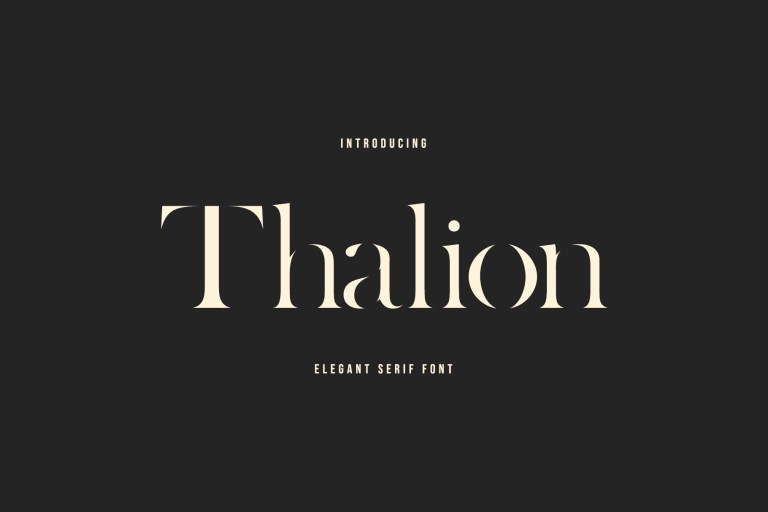
Thalion Font
Thalion Font is perfect for fantasy novel covers, medieval game titles, mystical restaurant branding, elven-themed events, ancient manuscript reproductions, magical potion shop signage, enchanted forest tourism, and ethereal wedding invitations.
This font is exciting because it channels ancient elvish elegance with ethereal letterforms that capture the timeless grace and mystical wisdom of immortal beings dwelling in enchanted realms beyond mortal understanding. Thalion Font brings otherworldly sophistication to designs through its flowing structure and celestial styling that feels inscribed by moonlight and blessed by ancient forest magic. The font's mystical character makes it perfect for brands that embrace fantasy and want to communicate magic, wisdom, and the kind of ethereal beauty that transcends the ordinary world and transports souls to realms of wonder.
The Thalion Font family includes Regular, Bold, Light, Elvish, Mystical, and Ancient variants, each designed to capture different aspects of fantasy elegance while maintaining the font's characteristic ethereal appeal and magical authenticity. The character set features enchanted details that enhance the font's connection to elvish traditions and mystical lore.
Whether you're creating branding for fantasy entertainment, designing materials for magical events, or developing content that needs to evoke otherworldly beauty, Thalion Font Free Download delivers the enchanting typography that opens gateways to realms of magic and wonder. This remarkable typeface transforms text into elvish incantations that resonate with the same timeless grace and mystical power found in the most sacred groves where ancient magic still flows freely, ensuring your message communicates the profound wisdom and ethereal beauty that defines immortal beings who guard the secrets of creation and inspire mortals to believe in magic.